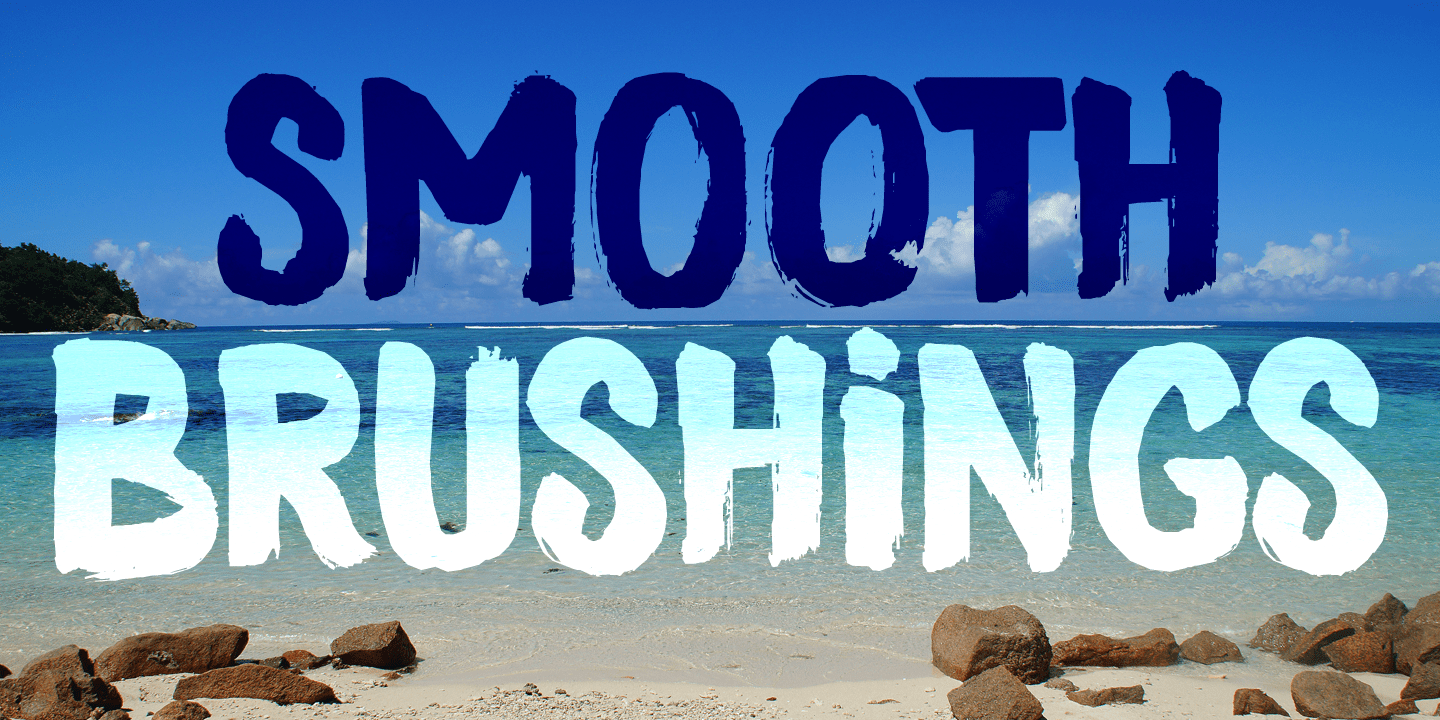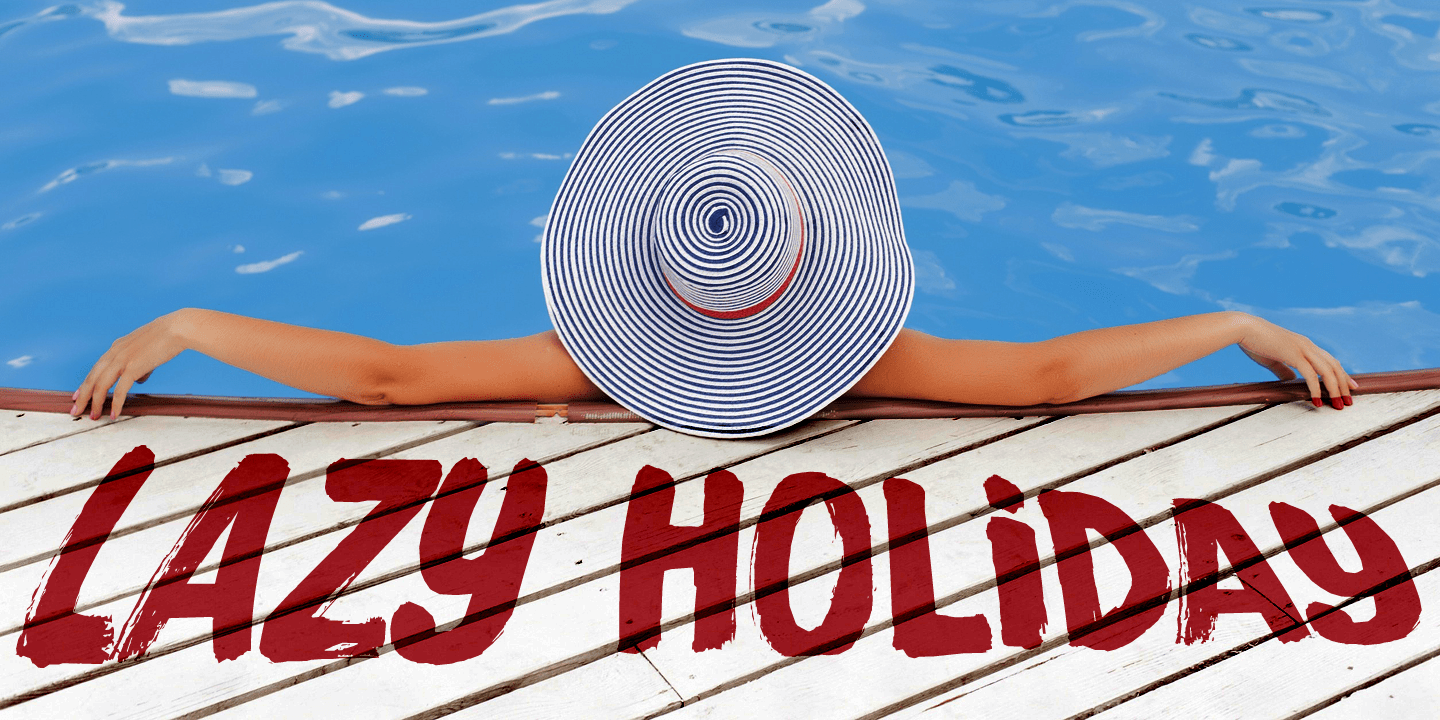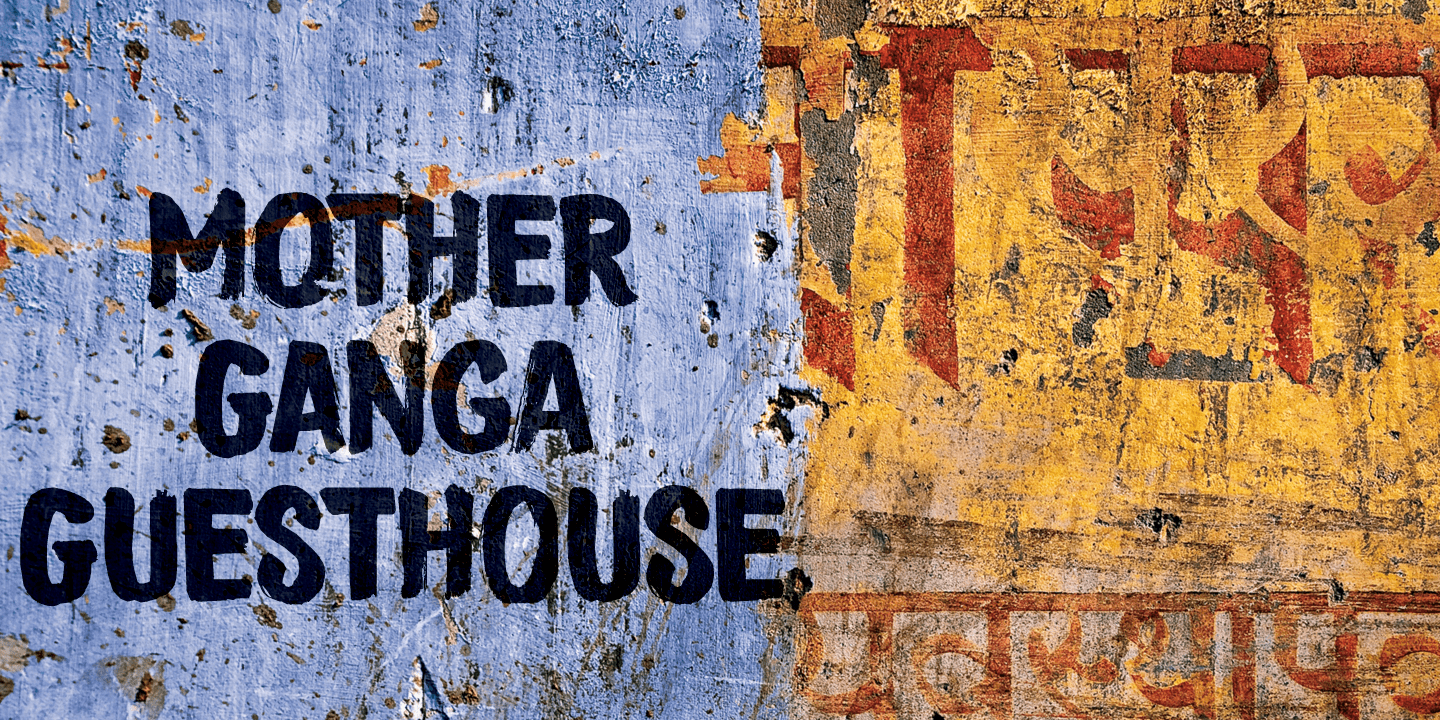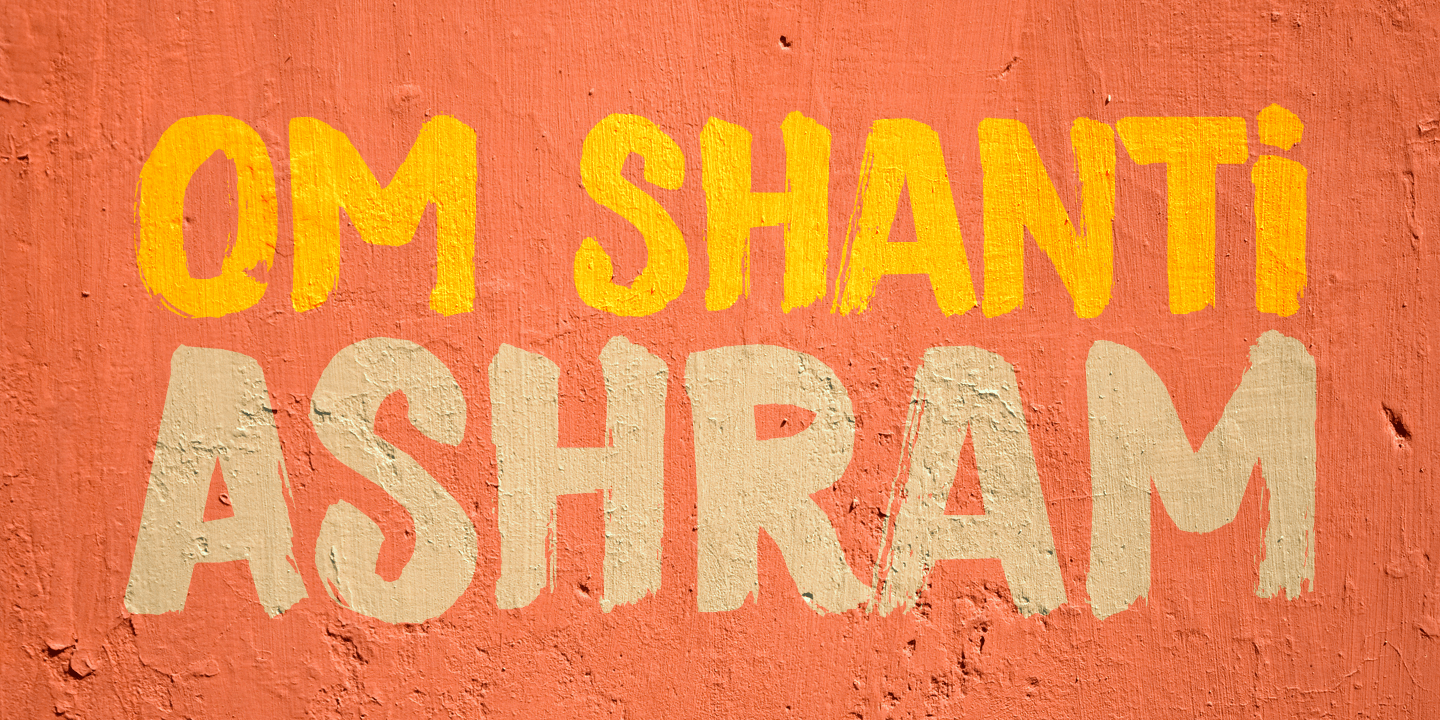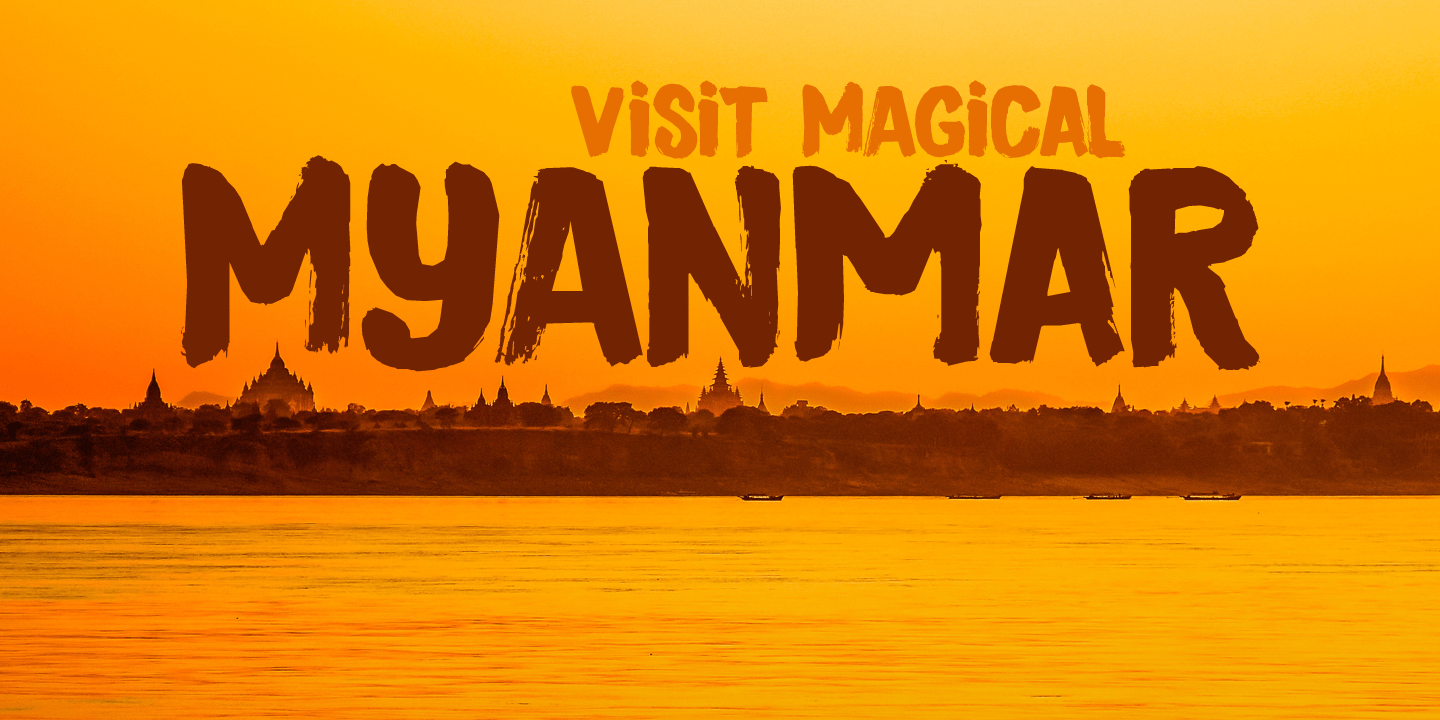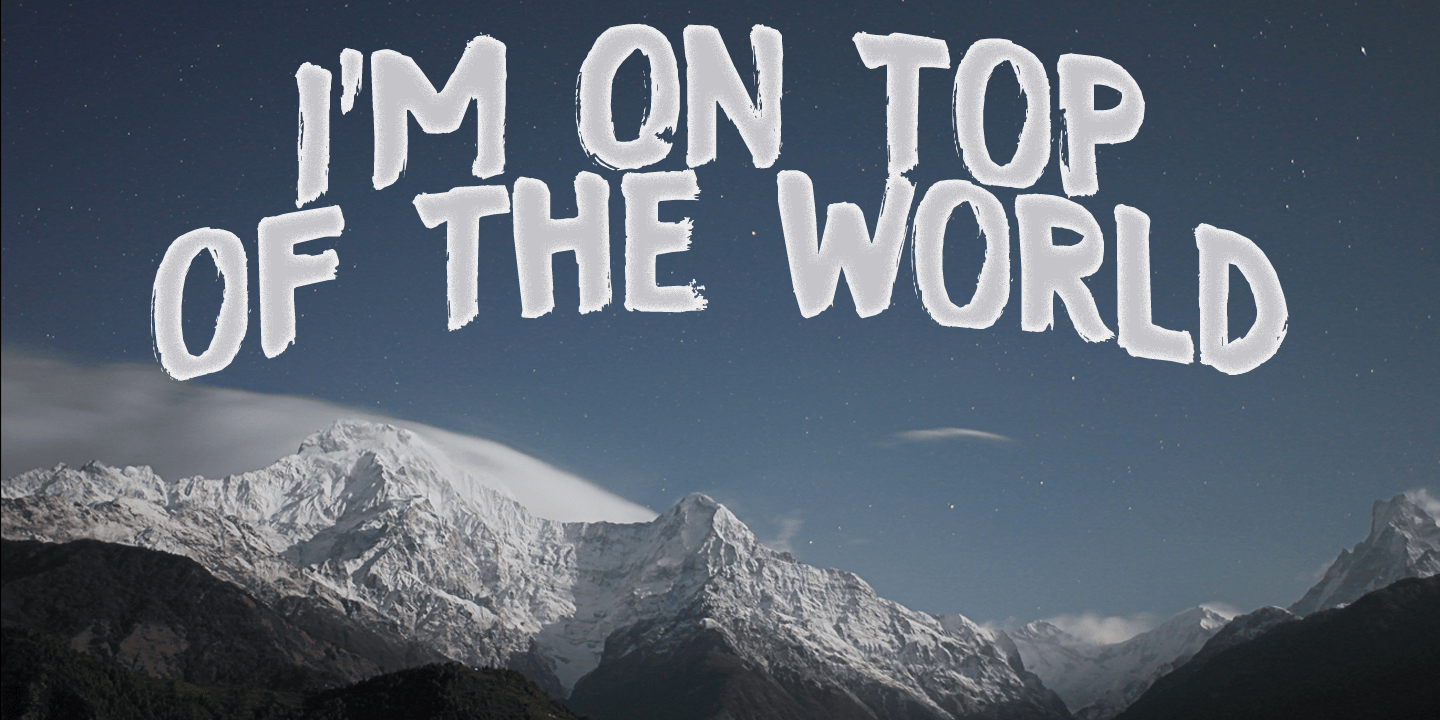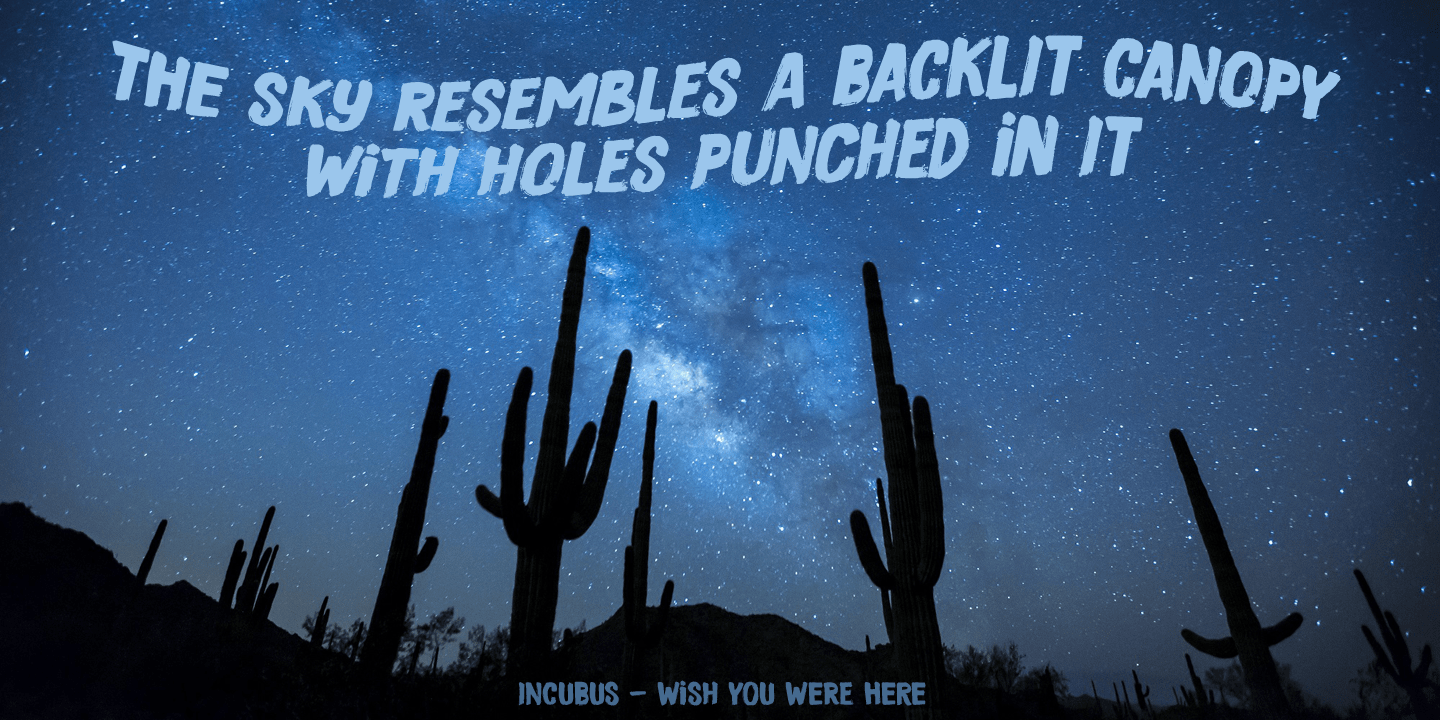
Smooth Brushings
When I was painting this font, I suddenly had the movie Cool Runnings (1993, directed by Jon Turteltaub) in my head. I had to name the font, so I came up with Smooth Brushings. Of course, this font has nothing to do with the movie.
Smooth Brushings is an all caps brush font, which was made with a stiff brush and some China Ink. Upper and lower case glyphs can be mixed. It is a very legible and clear font, ideally suited for posters, product packaging and book covers.